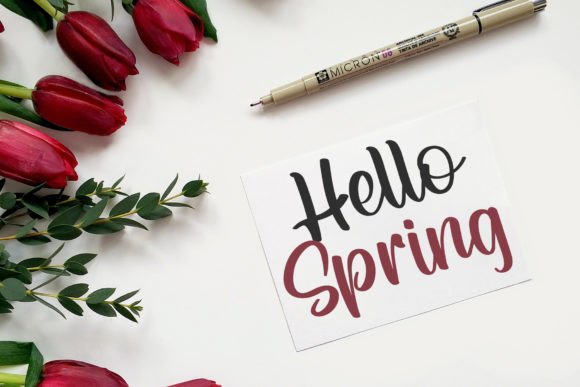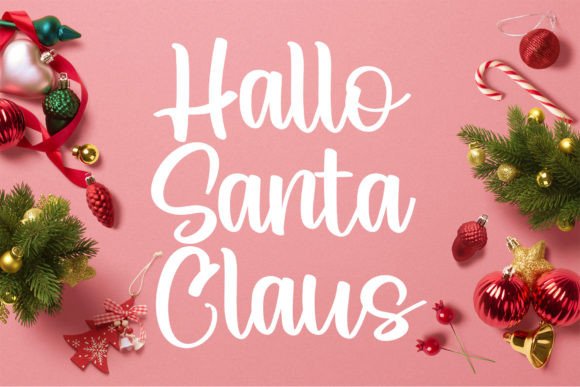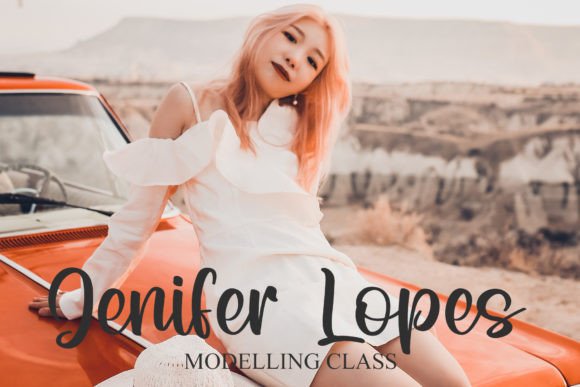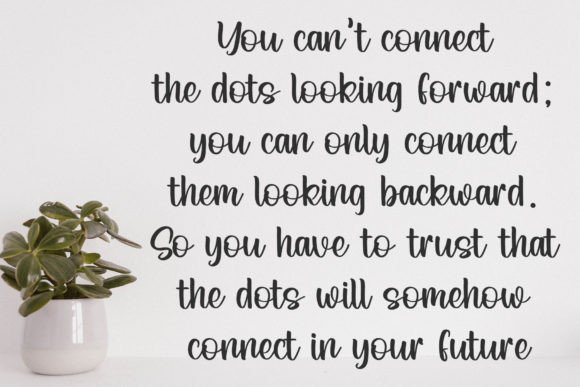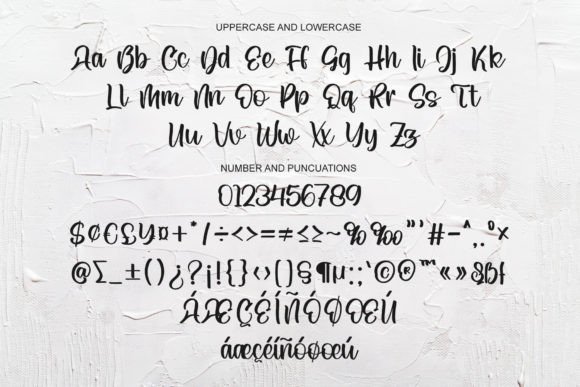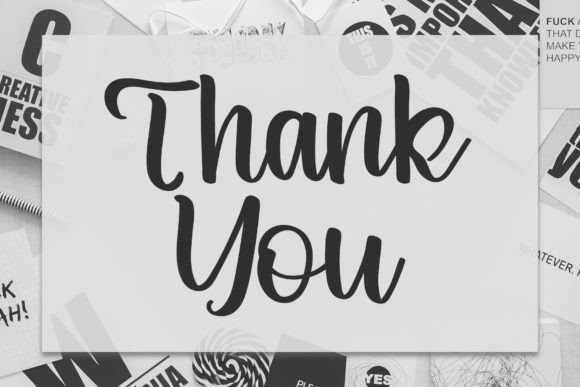
Jealous Font
About Jealous Font
Jealous Font is an elegant handwritten script that blends delicacy with timeless charm. With graceful strokes and flowing lines, this typeface brings sophistication to both personal and professional projects. Because of its versatile design, Jealous Font is ideal for invitations, posters, branding, wedding stationery, and digital creative work.
An Elegant Handwritten Typeface with Timeless Style
Handwritten fonts are cherished for their ability to add emotion and character, and Jealous Font takes this further with a stylish flow. Its delicate details and balanced rhythm make it both beautiful and easy to read. Moreover, it adapts seamlessly to modern or classic layouts. As a result, this font is a dependable choice for designers who want refinement with a touch of uniqueness.
When it comes to invitations and stationery, Jealous Font is a natural fit. For example, it can turn a wedding invitation into a sophisticated keepsake. In addition, it works beautifully for thank-you notes, seasonal greetings, and birthday cards. Because of its flowing elegance, every design feels personal, heartfelt, and timeless.
A Script Typeface for Logos and Branding
Brands and businesses seeking sophistication in their visual identity will find Jealous Font an excellent choice. Logos, packaging, and product labels gain elegance and individuality with this script. Furthermore, on social media, it enhances posts, stories, and promotional graphics with a refined handwritten appeal. When paired with minimalist sans serif fonts, Jealous Font balances professionalism with creativity.
Another advantage of Jealous Font is its adaptability across platforms. In print, it enhances posters, brochures, magazines, and merchandise. Digitally, it elevates websites, blogs, and presentations with charm and elegance. Since it maintains clarity at both small and large sizes, this handwritten script is a reliable option for diverse design applications.